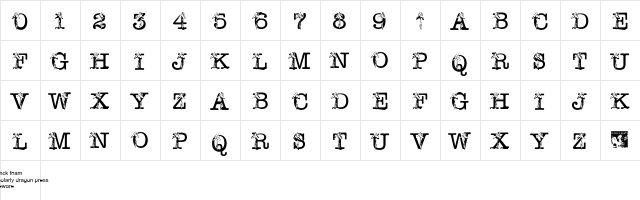
pf_iris Regular
| Designer | David E. Howerton |
Design Context for pf_iris Typeface
pf_iris is a composed and adaptable typeface that performs quietly and consistently across a wide range of design contexts.